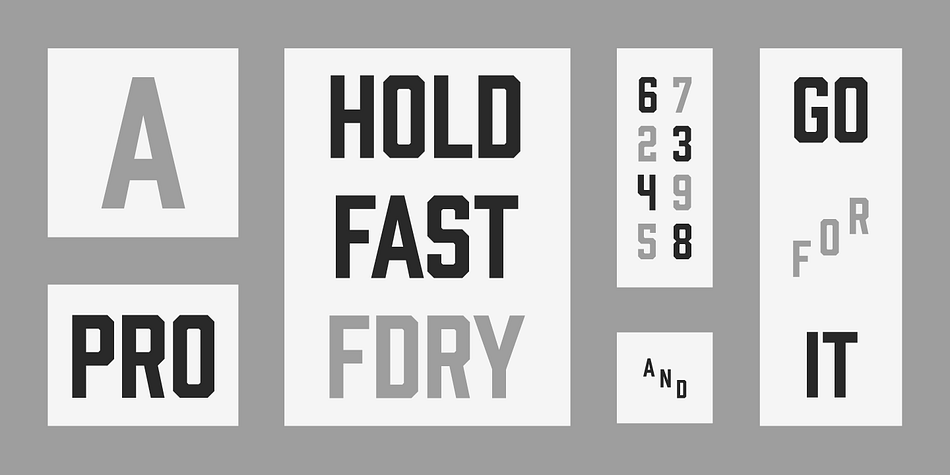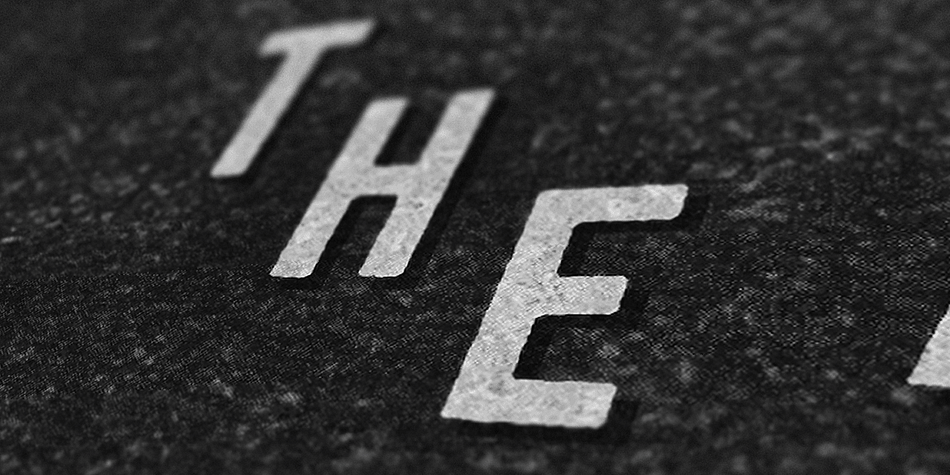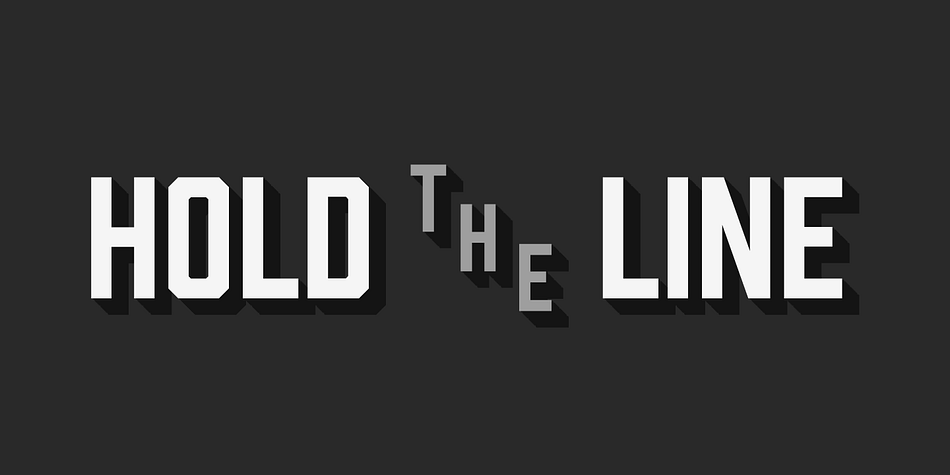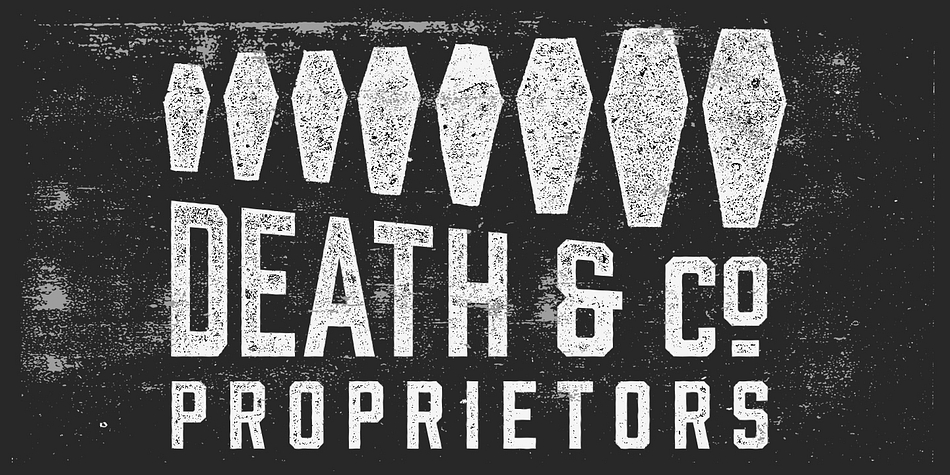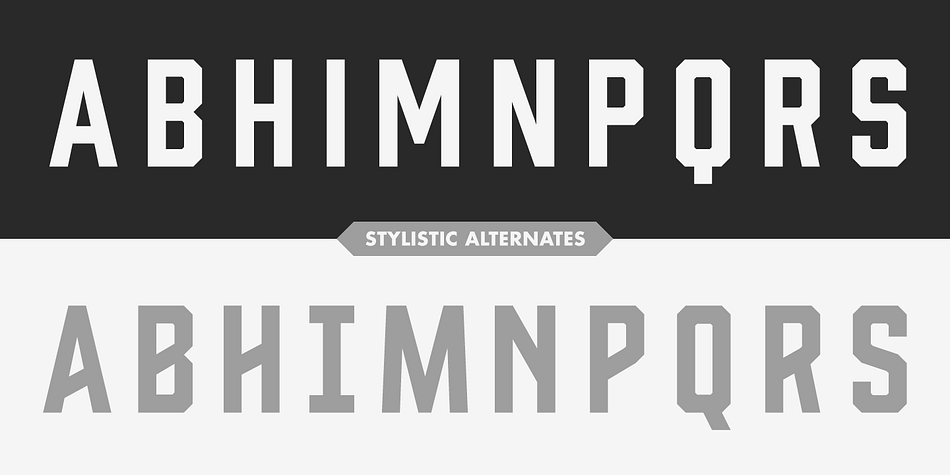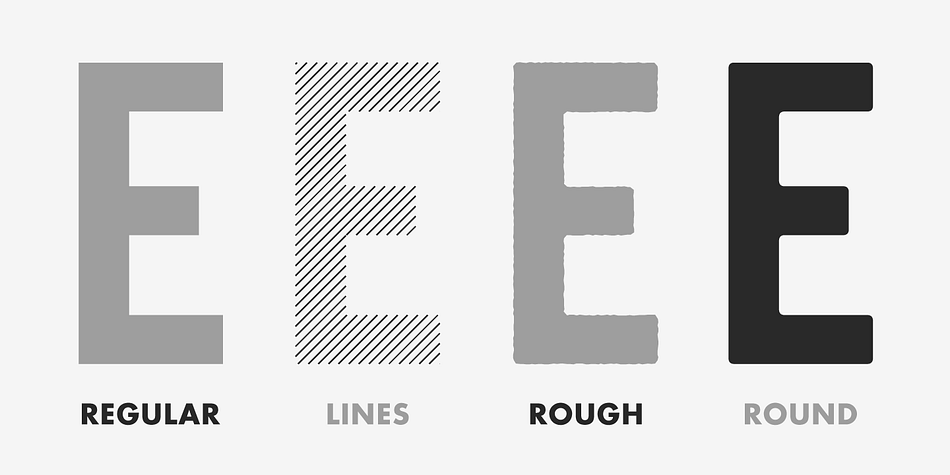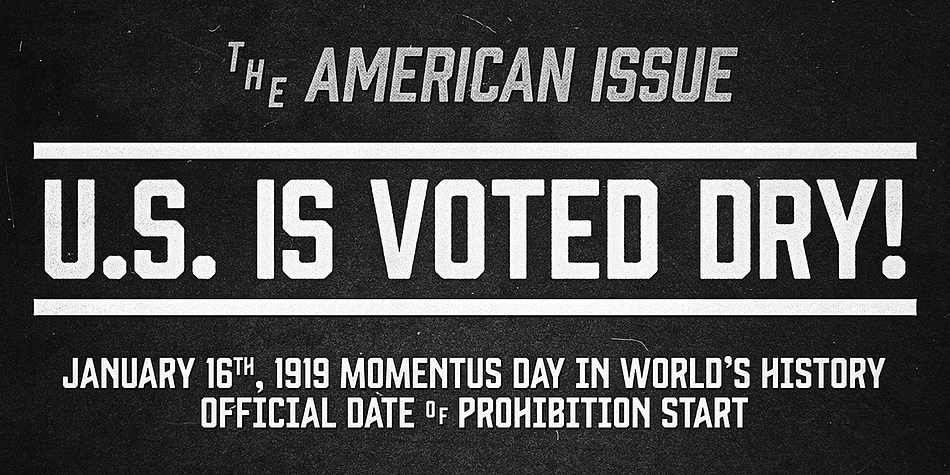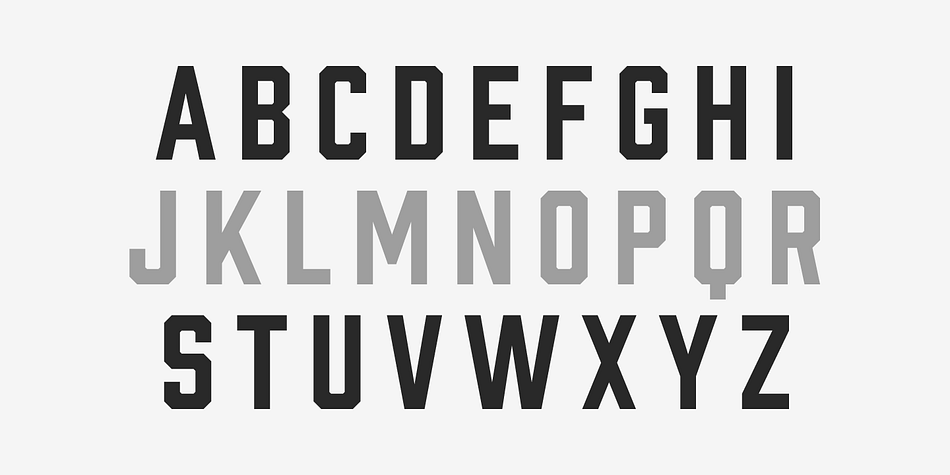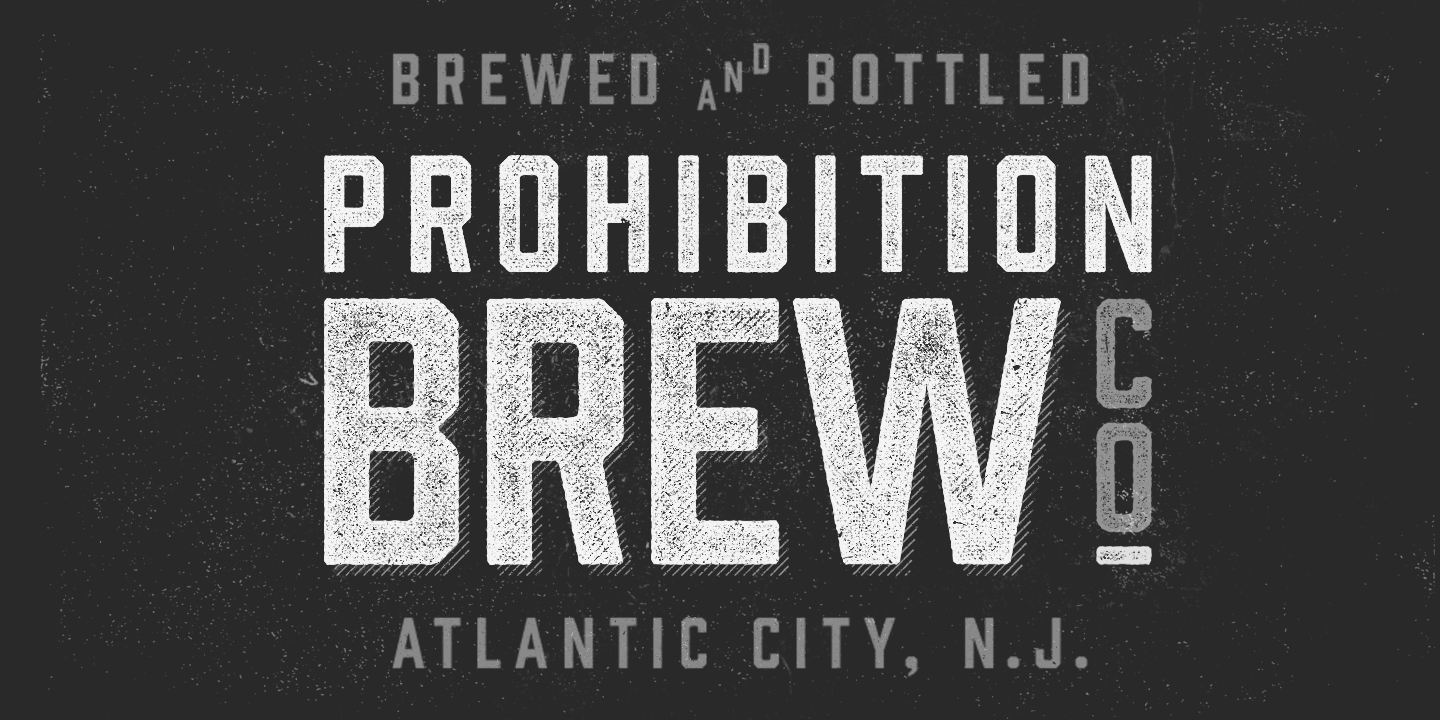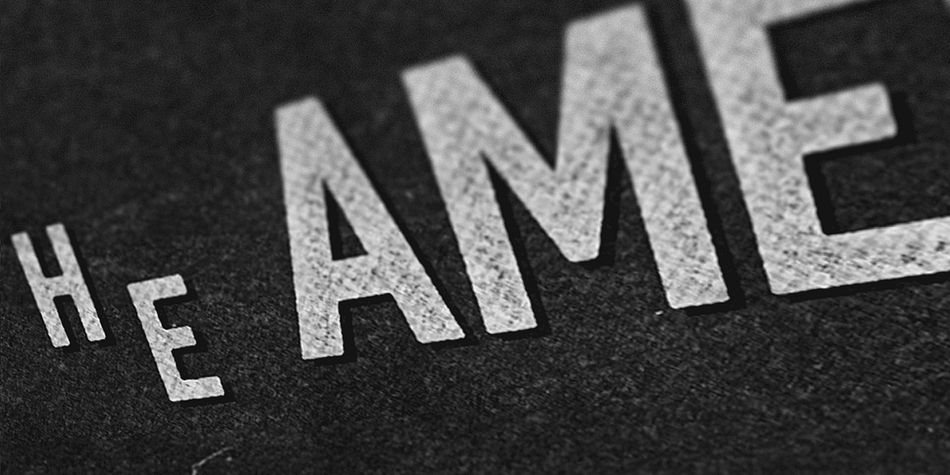
Prohibition is a display sans font family. This typeface has eight styles and was published by Fort Foundry.
The ban on serifs is at hand! Bourbon and Gin thought they could get away with their spirited serifs, but Prohibition has arrived and cut them off. Packed with some new surprises, this vintage sans typeface takes queues from classic war and workforce posters to industrial factories.
Features include: Stylistic Alternates, Discretionary Ligatures, and Multiple Language Support